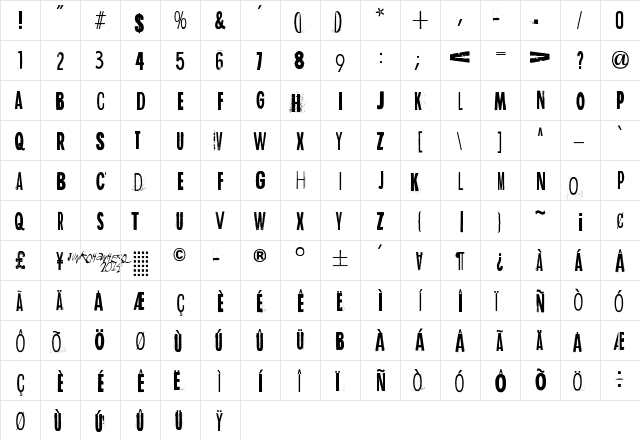
Rediscovered Regular
| Designer | junkohanhero |
Design Context for Rediscovered Typeface
Rediscovered takes a measured approach to typography — its balanced proportions and neutral character make it a reliable workhorse for both digital and print work.